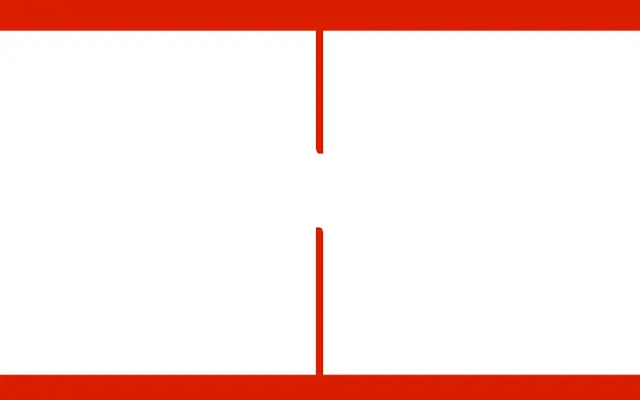
Fit Hebrew
David Jonathan Ross · Oded Ezer, David Jonathan Ross
A variable Hebrew display typeface co-designed by Oded Ezer and David Jonathan Ross, adapted from FIT's Latin to fill any space to its absolute maximum width.
Adapted from Ross's Latin Fit, this Hebrew counterpart was drawn by Oded Ezer to reconcile Fit's rigid alternating curves-and-corners system with the squareness and directional logic of the Hebrew alphabet. Where the Latin mixes uppercase and lowercase to maximise space, Fit Hebrew alternates block and cursive forms to the same end, with individual letters capable of stretching to 3,600% of their base width. The result is a variable font with effectively infinite widths, built for titling and poster work where every millimetre of space is contested.
An extreme variable display typeface designed to fill any given space to its maximum width, mixing block and cursive Hebrew forms analogously to the Latin's uppercase and lowercase mixing. Its sole purpose is spatial saturation in titling and poster contexts.